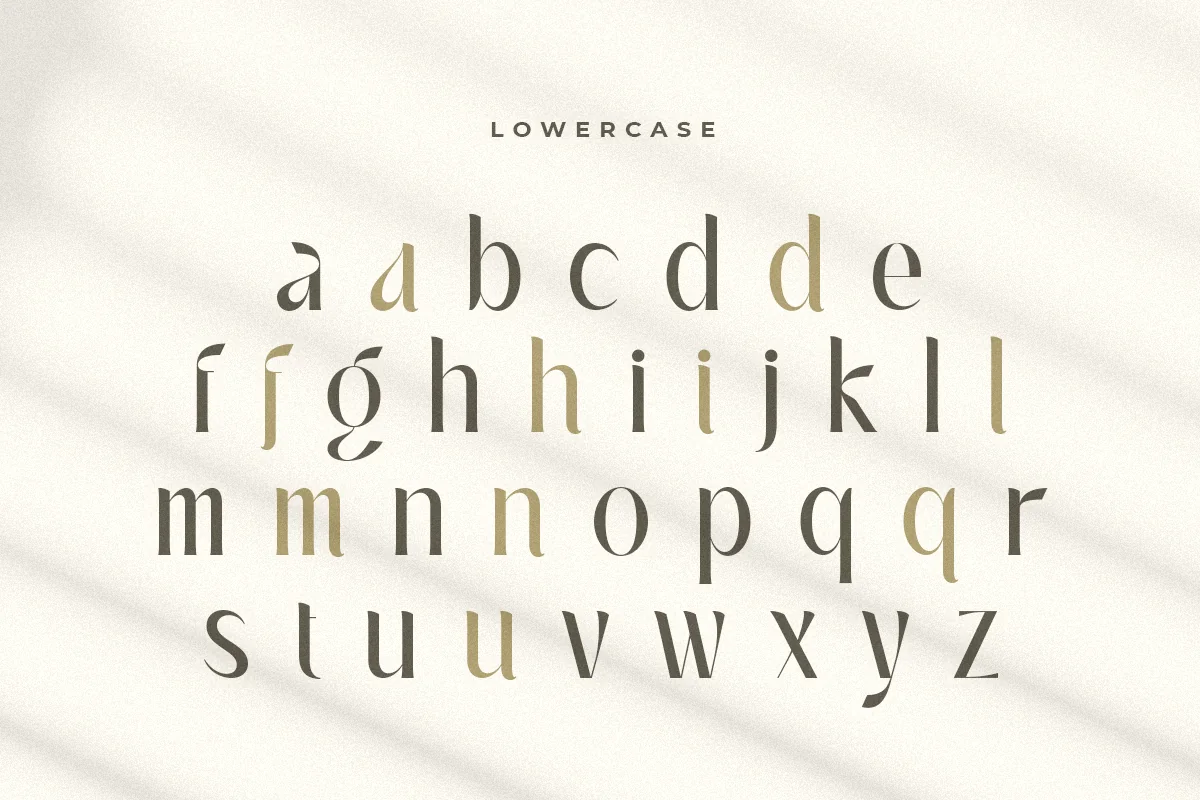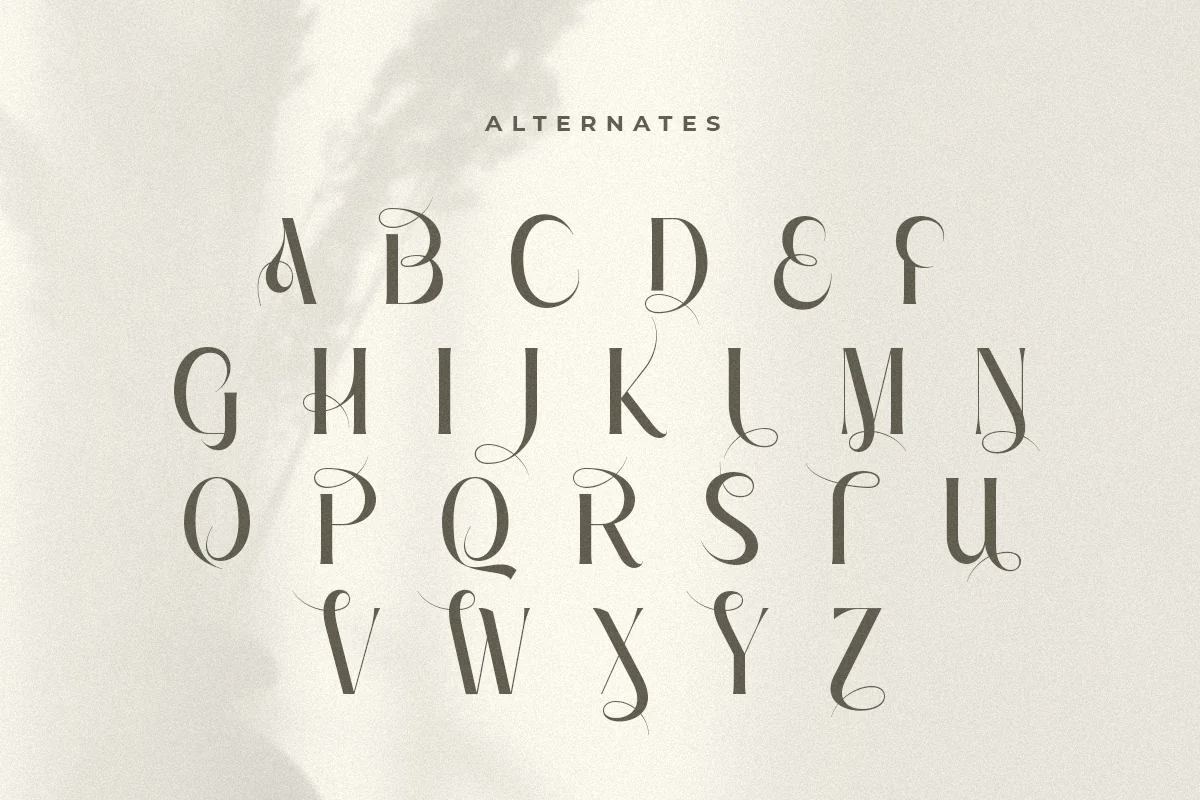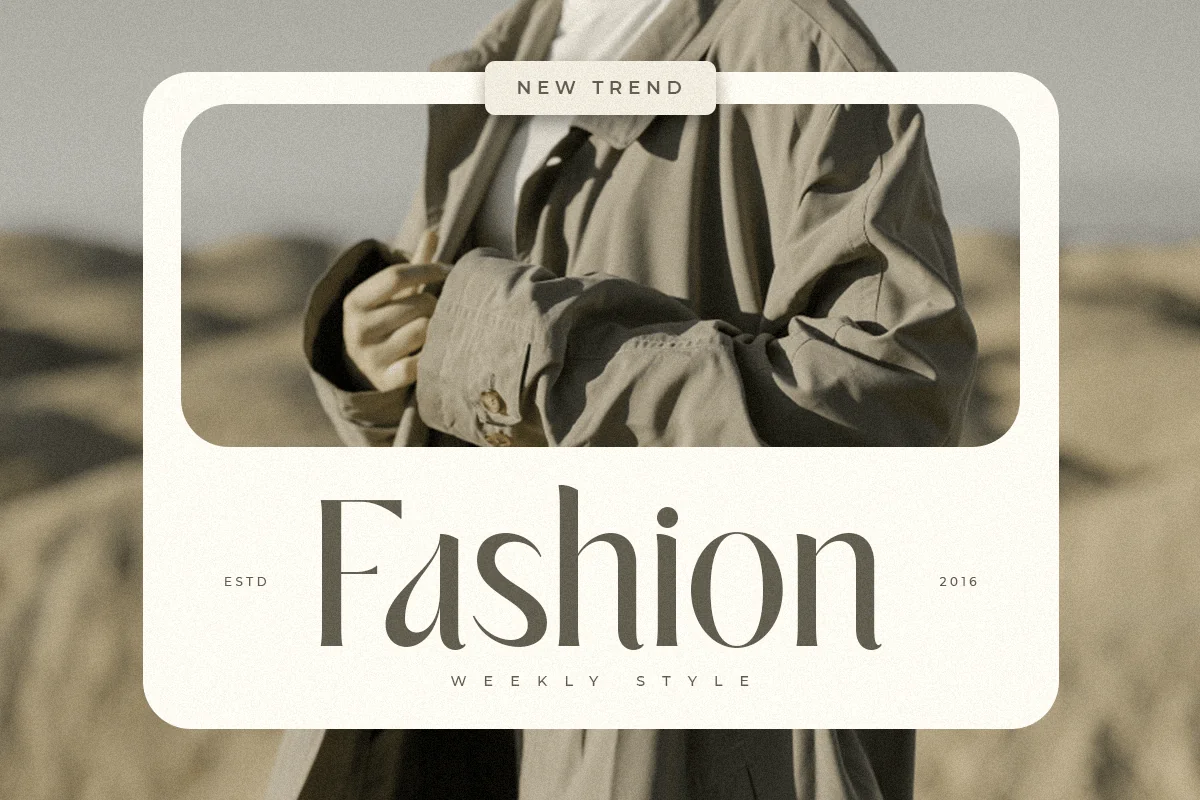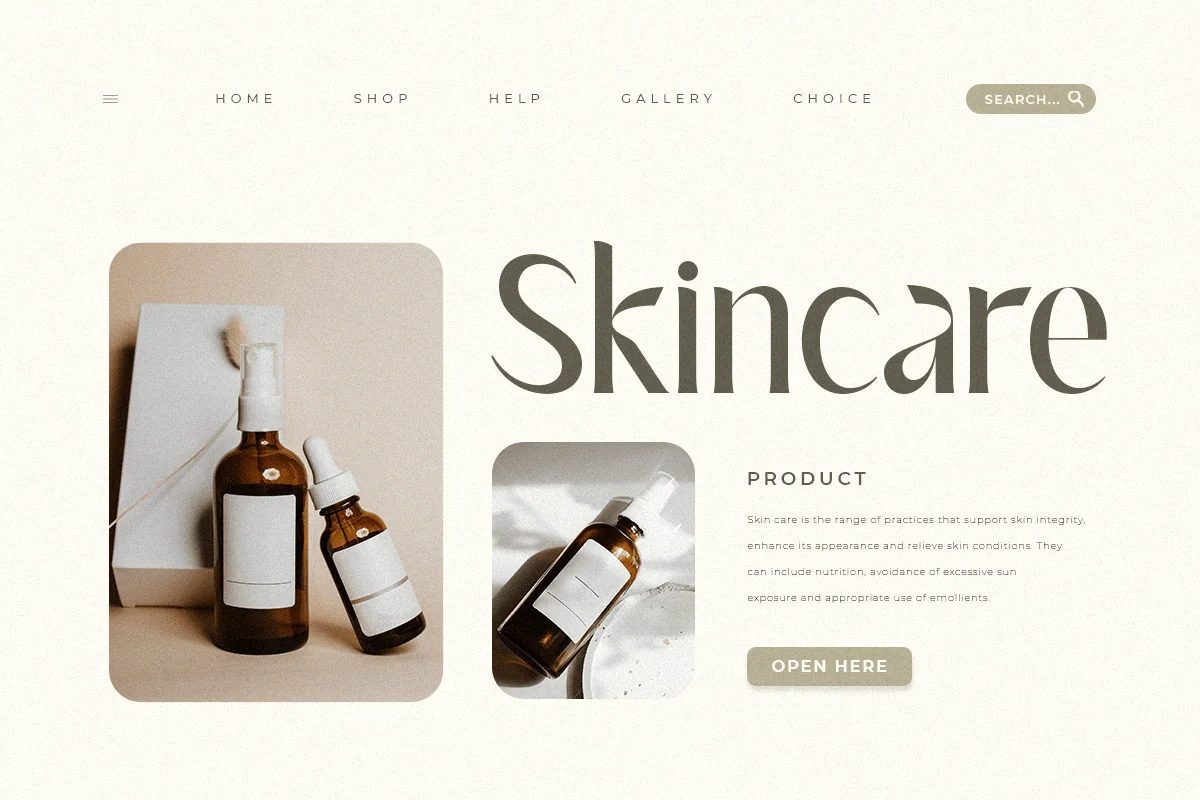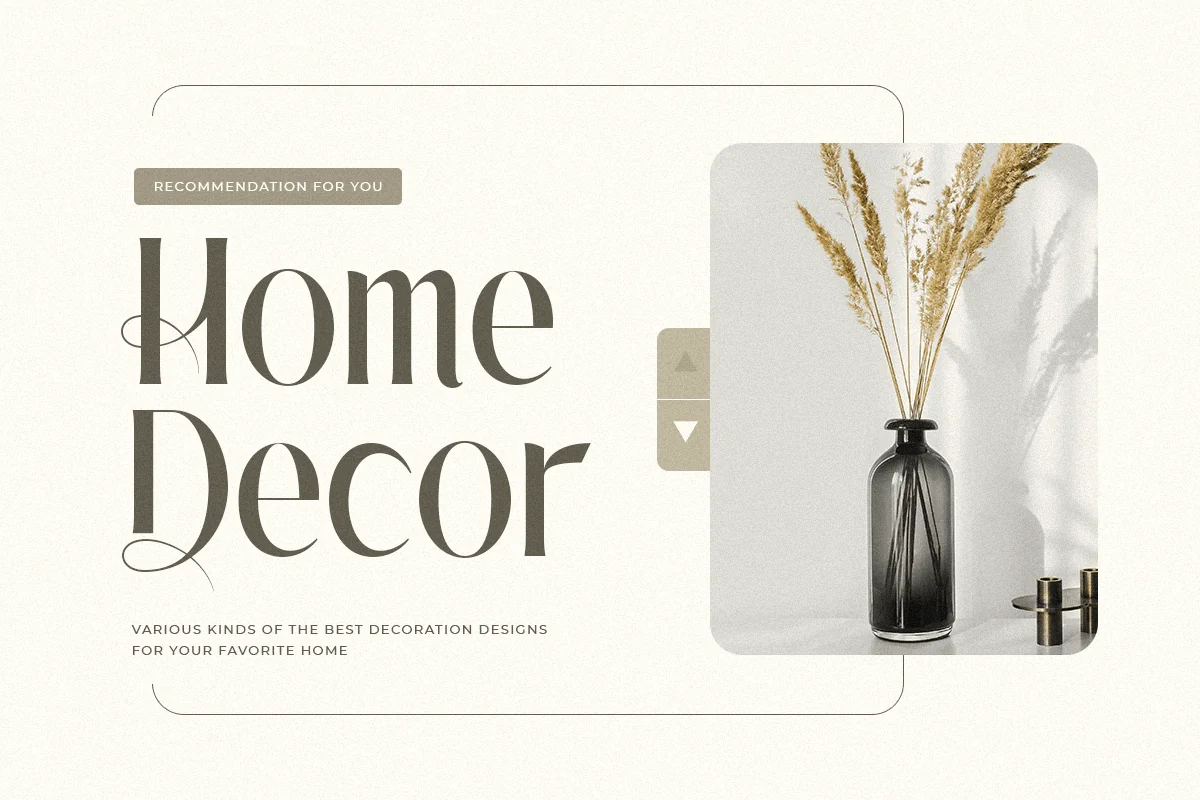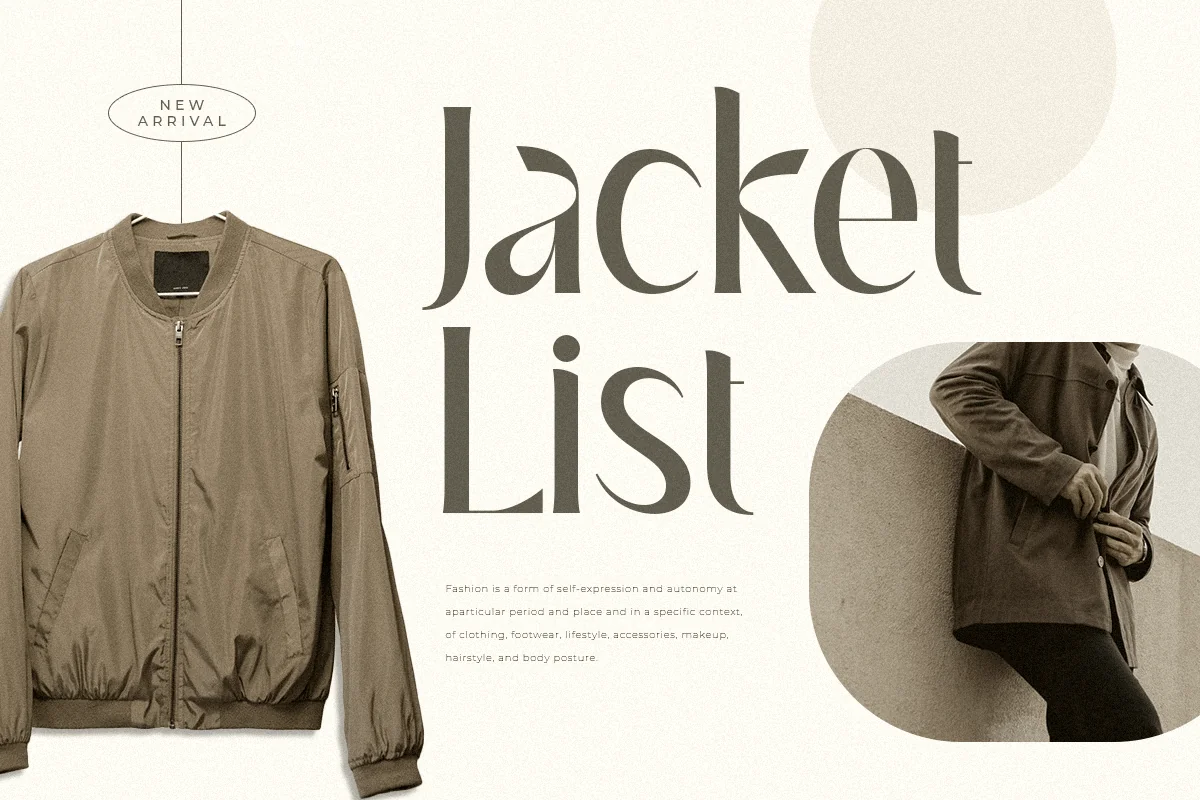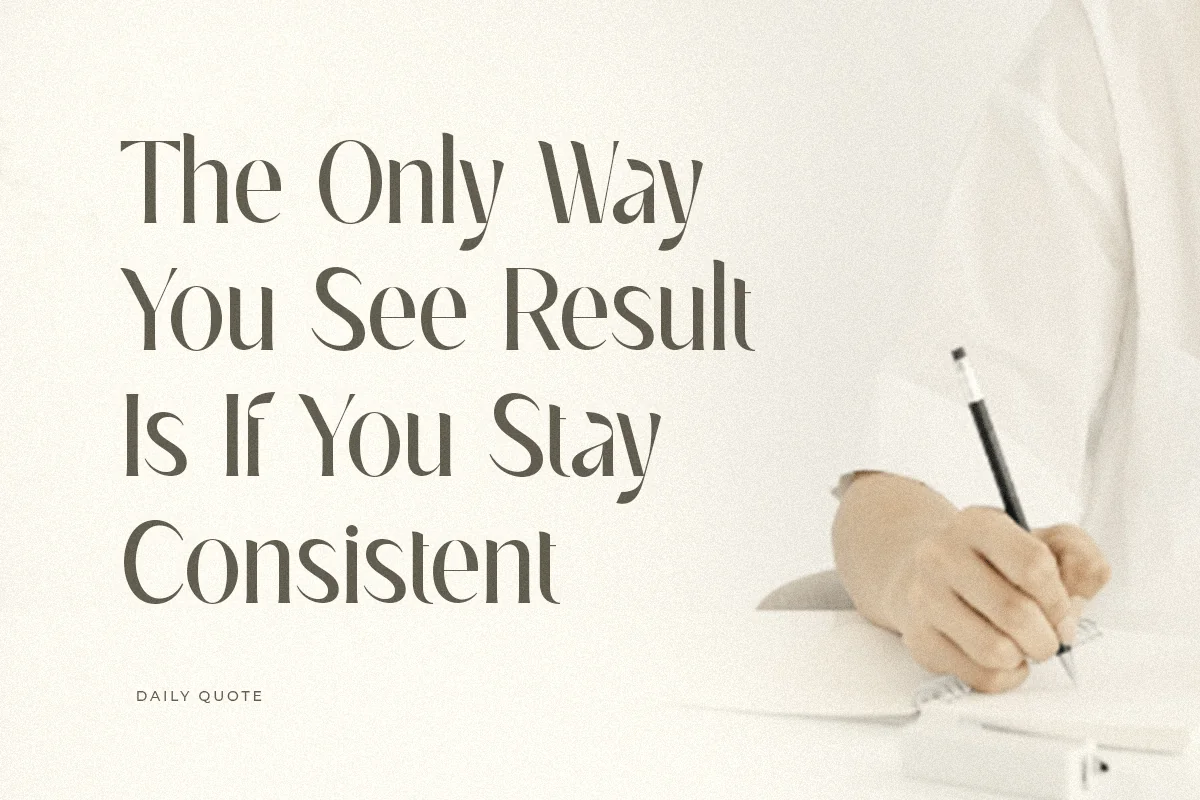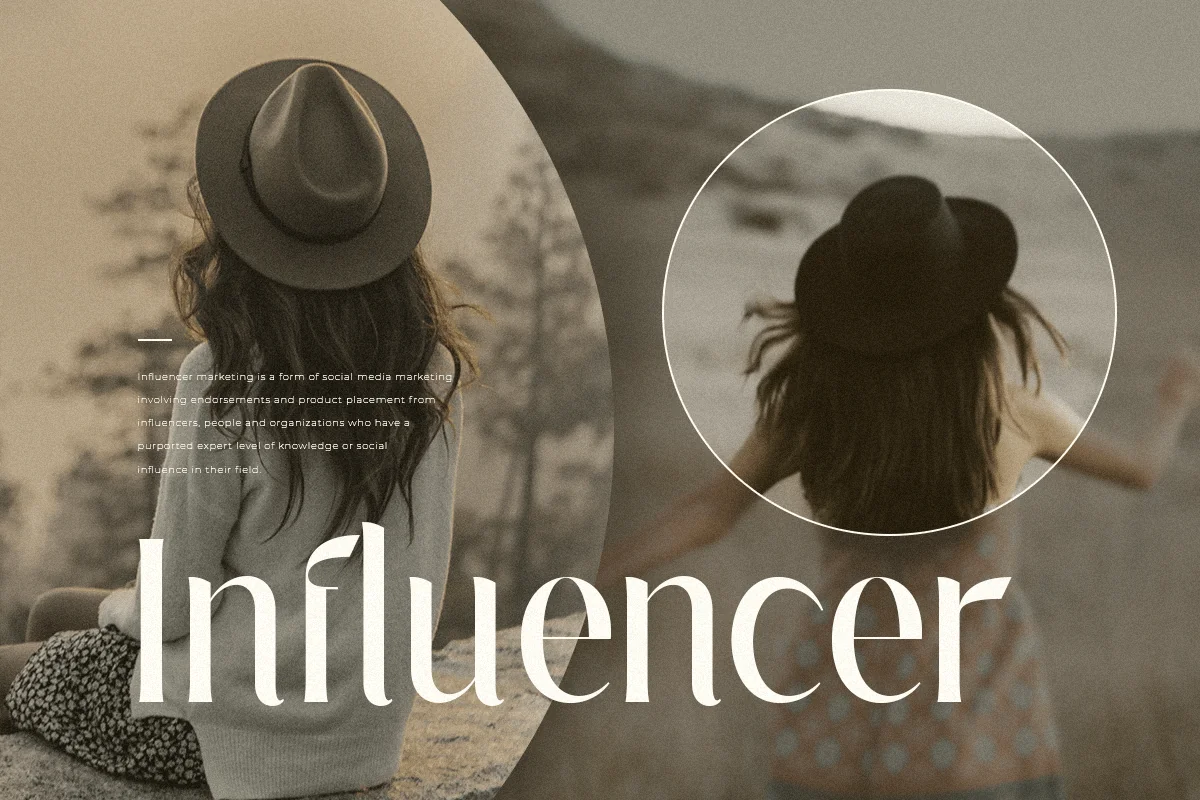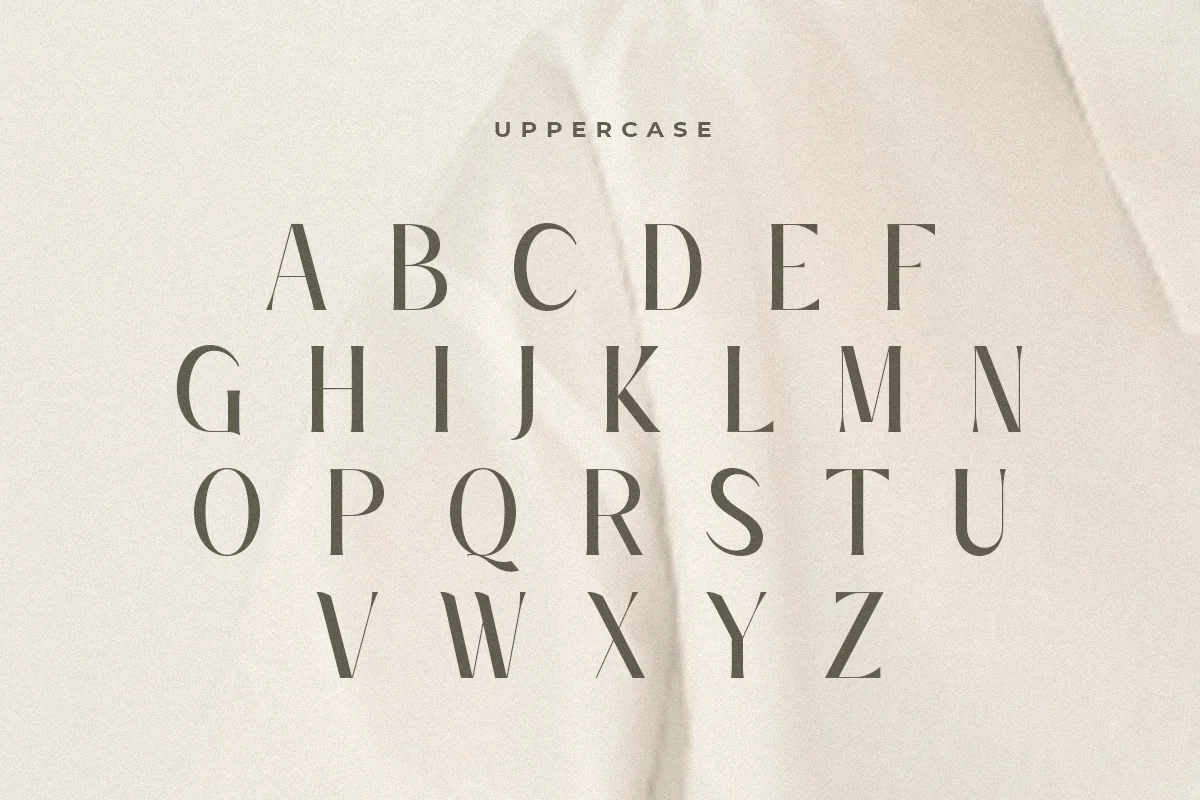
Reward – Modern Luxury Elegant Font
A Modern font that we created special for Modern Luxury Elegant branding needs, with extra alternates in unique shape will be ready to add value of your brand. It so nice to leverage designer or product owner that need solutions to make their design look more modern and Luxury. And specially for this font, We prepared any alternate characters to help you create unlimited variations for your creative needs.
Reward Modern Luxury Elegant font ready with:
- Any options to get creative variations (combination of Alternates)
- Preview as a inspirations that you can do with Reward font
- Ready with Lowercase and Uppercase characters